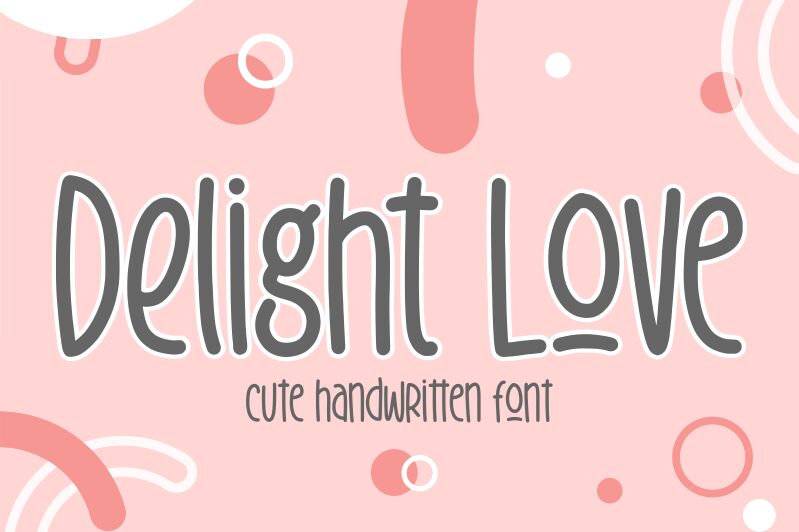
Delight Love, a captivating handwritten font by designer Risman Ginarwan, exudes elegance and charm. With its semi-light weight and condensed width, this font adds a touch of sophistication to any project. Ideal for wedding invitations, romantic quotes, or heartfelt greeting cards, Delight Love sets the stage for love-infused designs. Its graceful curves and unique strokes create a visually pleasing aesthetic that resonates with those seeking a personal and intimate feel. Let Delight Love be your go-to choice when you want to infuse warmth and affection into your creative endeavors.
Delight Love